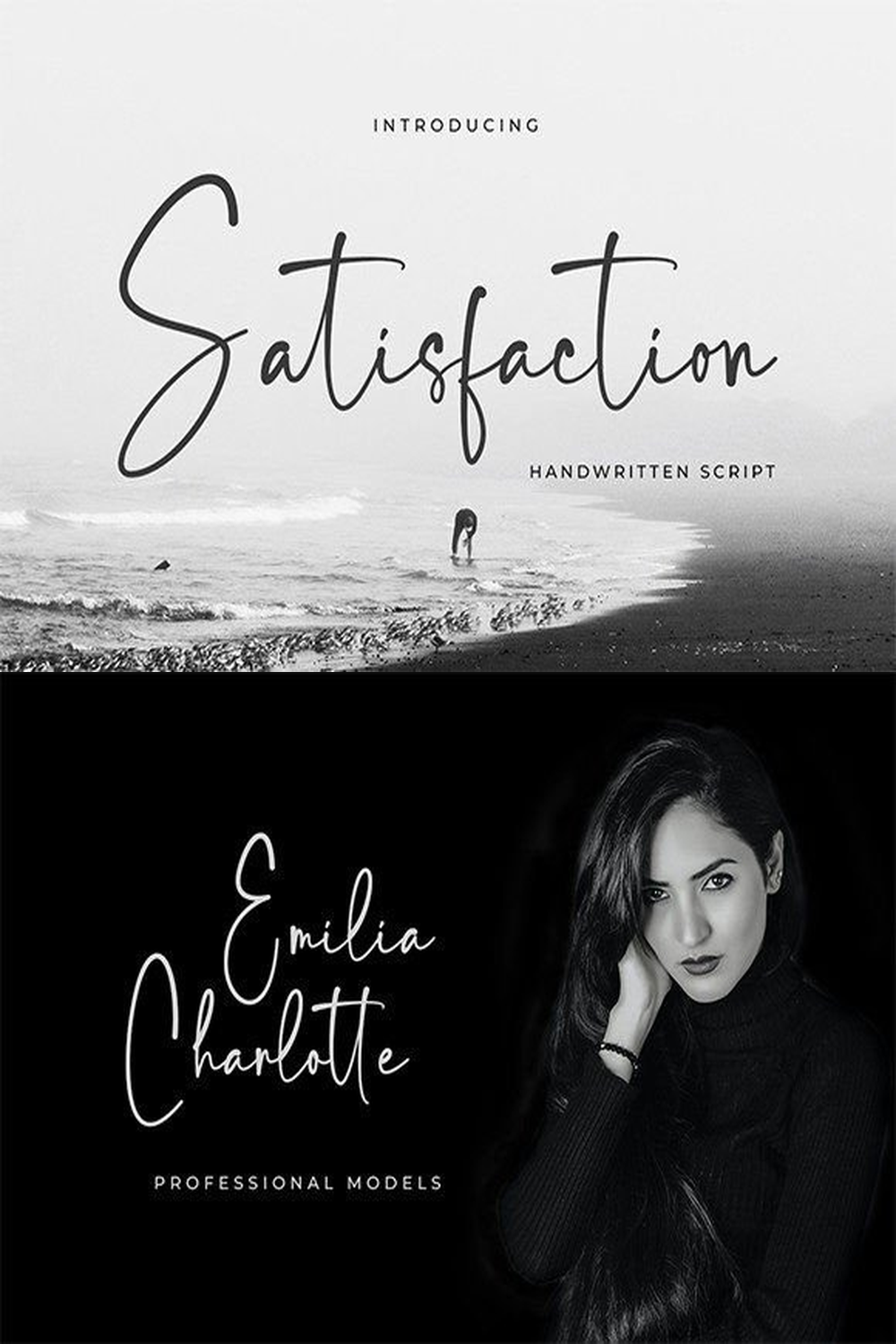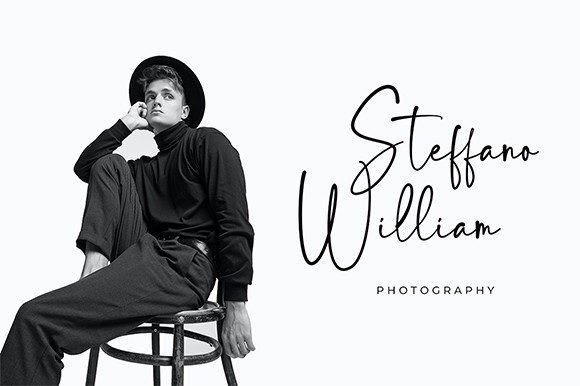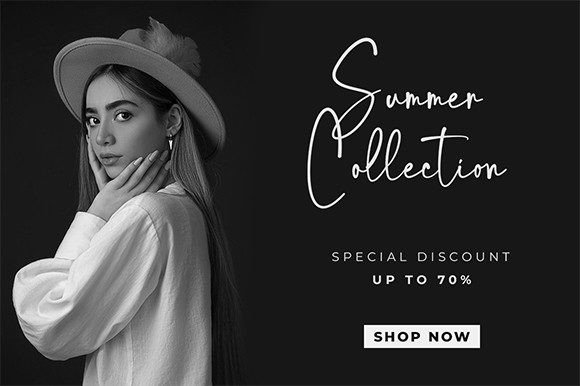
Satisfaction Font: Elegant Handwritten Script for Wedding Designs
About the Satisfaction Font
Step up your design game with Satisfaction Font, a font that exudes confidence and style. Satisfaction is an elegant and casual handwritten font. This stylish font would look great on your various design ideas. It will add an elegant and natural touch to any of your design projects!
Satisfaction Font Usage Examples